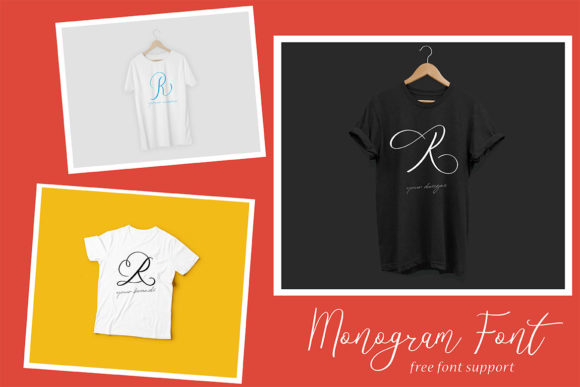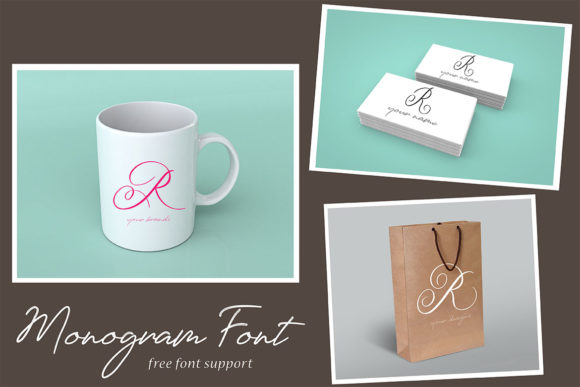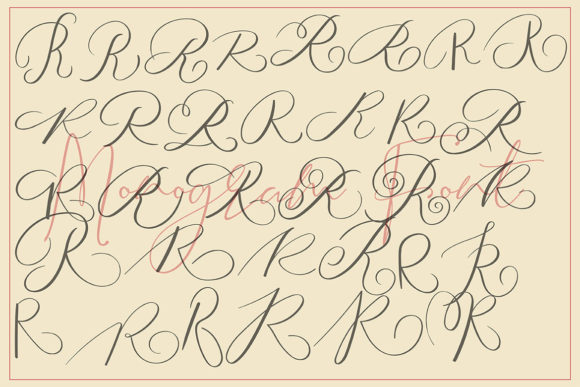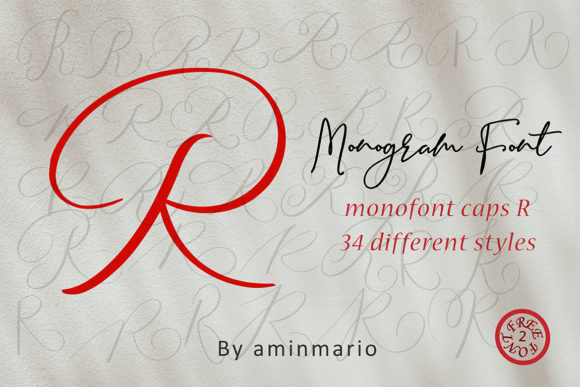
Monogram R | Monofont Caps R Font – Free Download
Introduction to Monogram R | Monofont Caps R Font
This MONOGRAM is natural handwriting of capital R with 36 different styles.
This is not for writing words or sentences, but for monograms Bonus 2 Font that contains the uppercase and lowercase to support it.
Key Features of Monogram R | Monofont Caps R Font